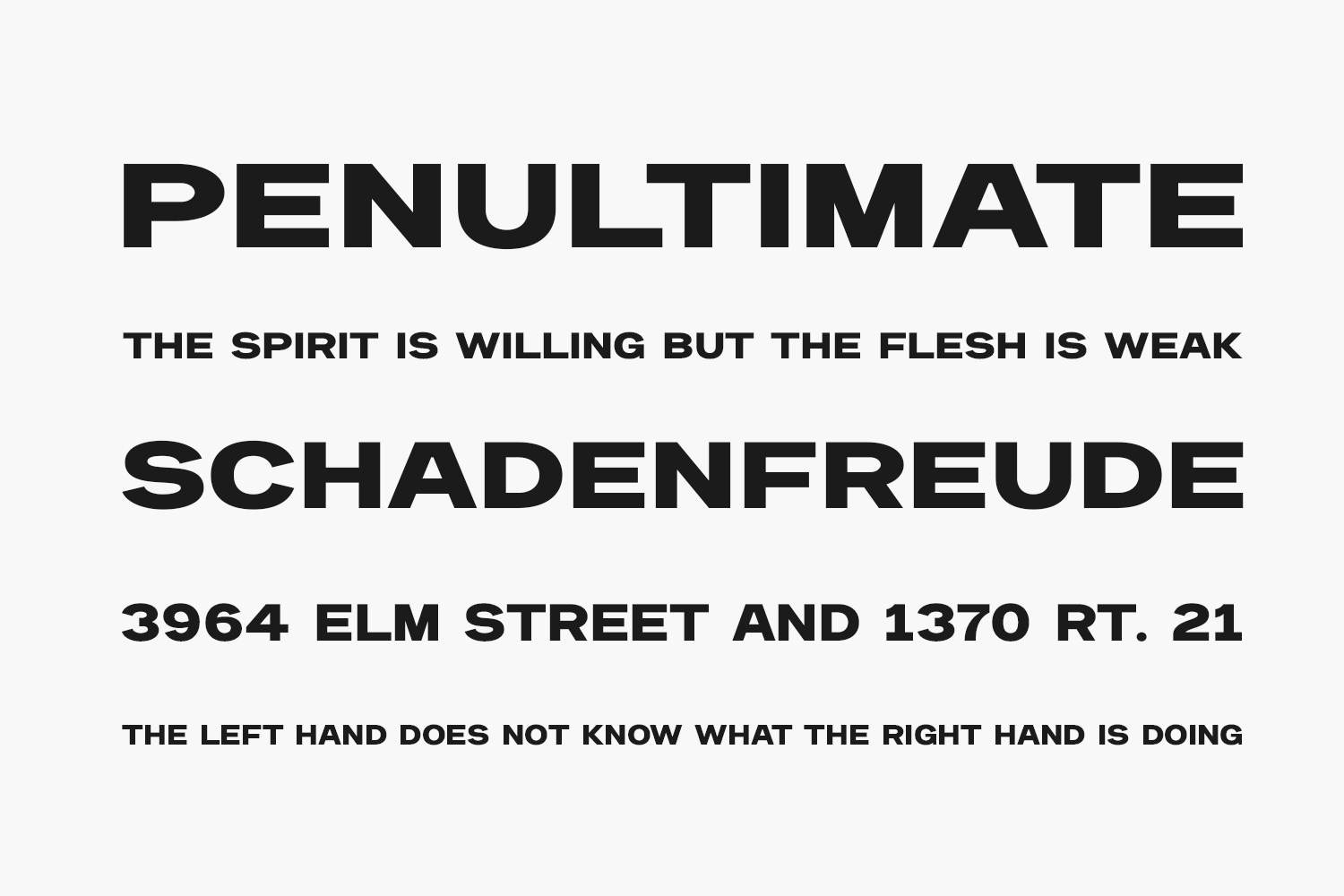
Gefika is a bold and powerful sans-serif font designed by BrandSemut to deliver high impact in your design projects. With its thick letterforms, clean structure, and strong visual presence, this free display typeface works perfectly for creating attention-grabbing logos, posters, brand identities, and digital headers. Available in OTF format with support for Latin characters, Gefika is ideal for designers seeking a modern sans-serif font that commands visibility without sacrificing readability.
Why Choose Gefika?
- Bold & Modern Style: Combines strength with simplicity for a striking yet minimalistic look.
- Ideal for Display Design: Perfect for large text applications like billboards, magazine covers, and social media banners.
Where to Use Gefika?
Gefika shines across a variety of creative applications:
- Logos & Branding: Adds confidence to brand identities of tech startups, streetwear labels, or urban lifestyle brands.
- Poster & Billboard Design: Designed for maximum legibility at a distance — great for outdoor visuals.
- Editorial Headers: Stands out in blog posts, newspaper titles, and advertising campaigns.
- Social Media Graphics: Creates bold, readable text overlays for Instagram Stories, YouTube thumbnails, and TikTok videos.
- Product Packaging: Brings clarity and style to product names on cans, bottles, or clothing tags.
Design Tips with Gefika
To maximize the impact of Gefika, pair it with thinner fonts for contrast and balance. Use this bold font for short slogans, logos, or headlines where legibility isn’t compromised. For digital use, apply it to dark backgrounds with white text to enhance its bold character. Try our interactive font preview tool below to test Gefika with your own text before downloading!